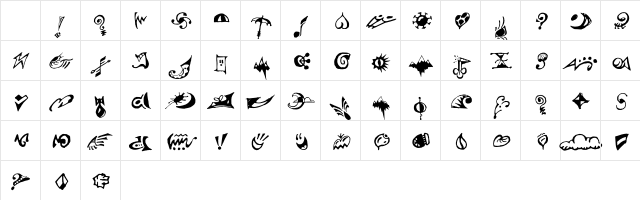
Complete SuRealDingbats VolumeOne glyph index. Displaying only characters natively supported by SuRealDingbats VolumeOne font.
SuRealDingbats is a composed and adaptable typeface that performs quietly and consistently across a wide range of design contexts.